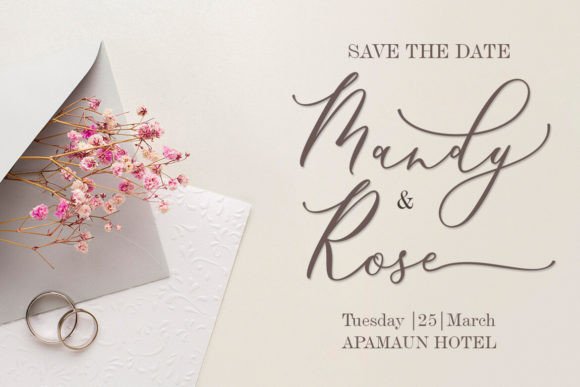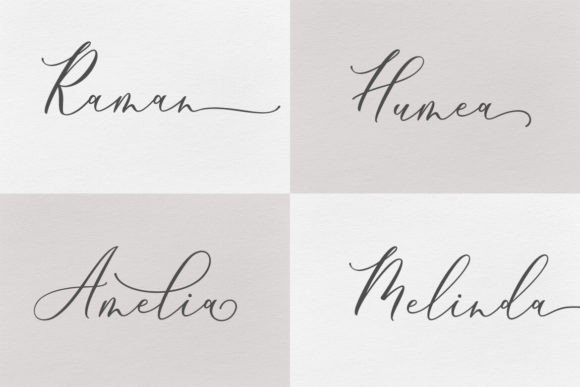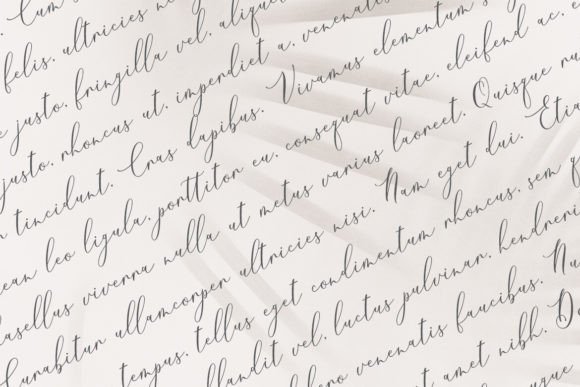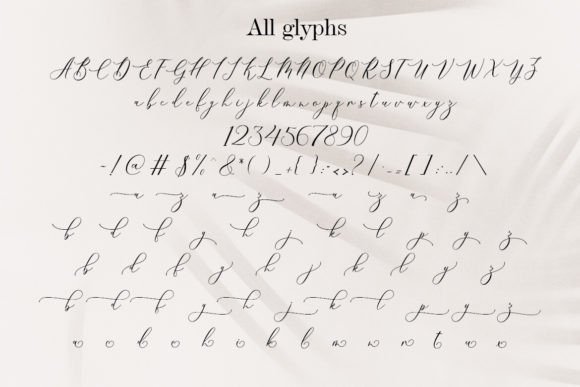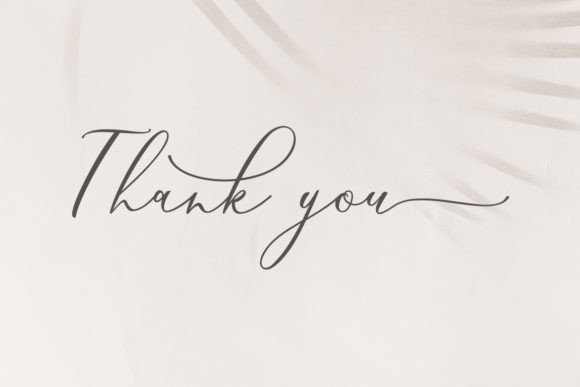
Introduction to Hemilia Font
As a designer, have you ever found yourself stuck in a creative rut, searching for that perfect font to elevate your project? You’re not alone. We’ve all been there, scrolling through design resources, trying to find the perfect combination of style and sophistication. And then, it hits you – the perfect font that takes your design from meh to mesmerizing. For many designers, that font is Hemilia Font, a delicate and elegant script font that exudes modern sophistication.
With its high-quality design and versatility, Hemilia Font is a valuable resource for designers looking to take their creative projects to the next level. Whether you’re a seasoned pro or just starting out, this font is sure to impress.
Key Features of Hemilia Font
- High-quality, elegant script font designed for creative projects and design resources.
- Perfect for adding a touch of sophistication and elegance to various design projects, including wedding invitations, branding materials, and more.
Honest Review: Hemilia Font
What works well: ✨ The Hemilia Font’s high quality and versatility make it perfect for a wide range of designs, from logos to typography-based projects. The font’s sophisticated design is both modern and timeless, ensuring it will remain relevant for years to come.
What I appreciate most about this design resource is its transparent background, making it easy to layer and customize to suit my needs. The font’s flexibility is unparalleled, allowing me to experiment with different styles and moods without sacrificing quality.
Limitations: ⚠️ While the Hemilia Font is incredibly versatile, I do wish it came in more languages to cater to a broader audience. Additionally, the font may not be suitable for very small text sizes due to its intricate design.
- High quality
- Sophisticated design
- Perfect for logos, typography, and creative projects
Hemilia Font
Tips for Getting the Most Out of Hemilia Font
Hemilia Font is ideal for use in digital designs, such as presentations, documents, and social media graphics. It’s also a great choice for use in print designs, such as business cards and brochures.